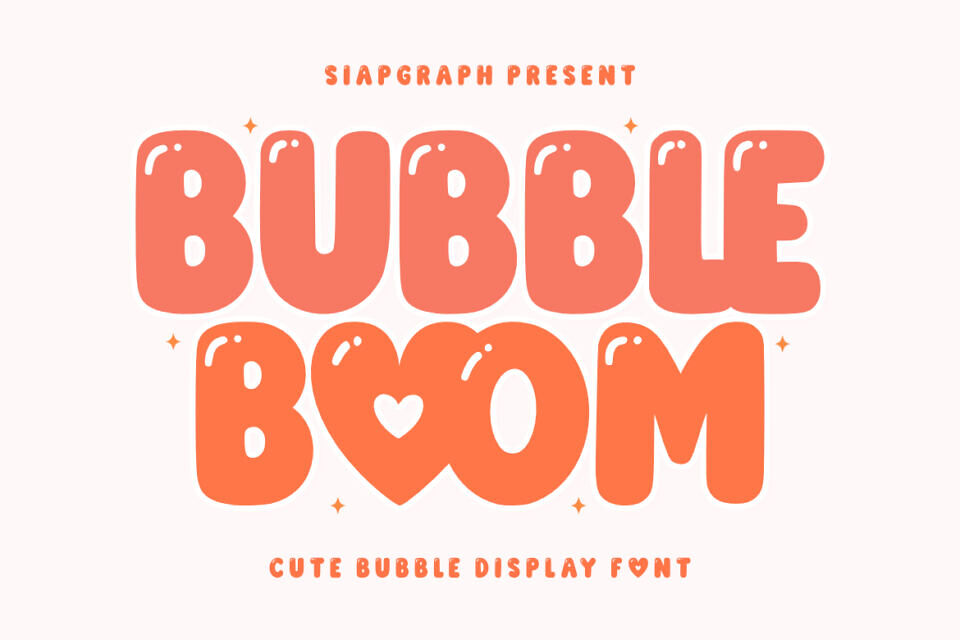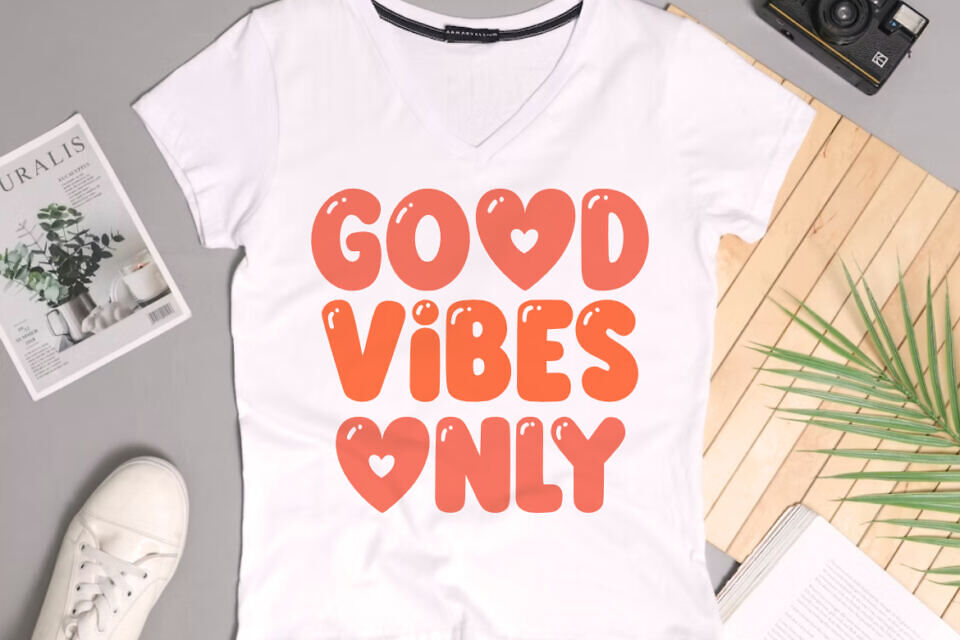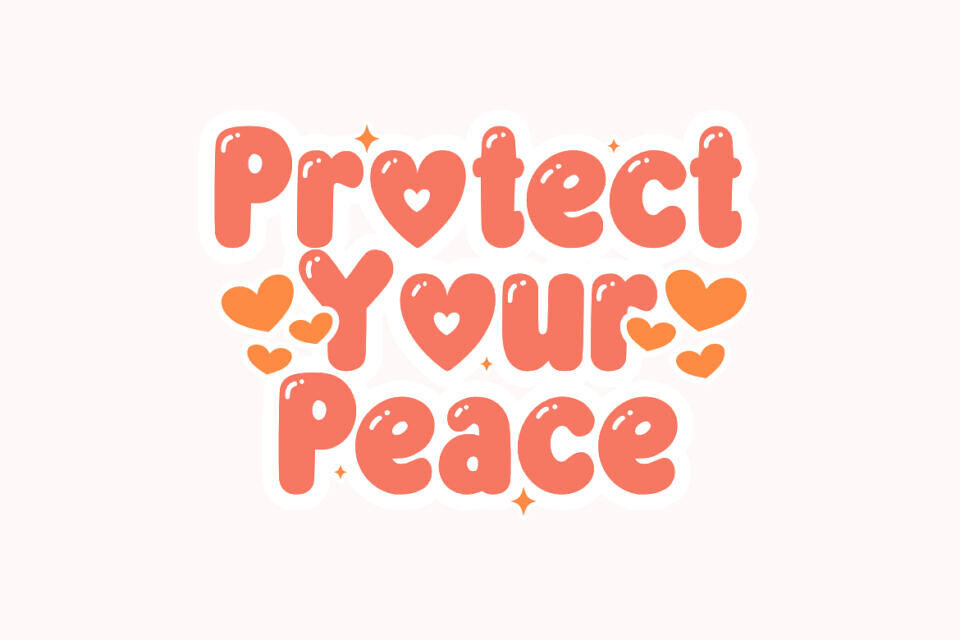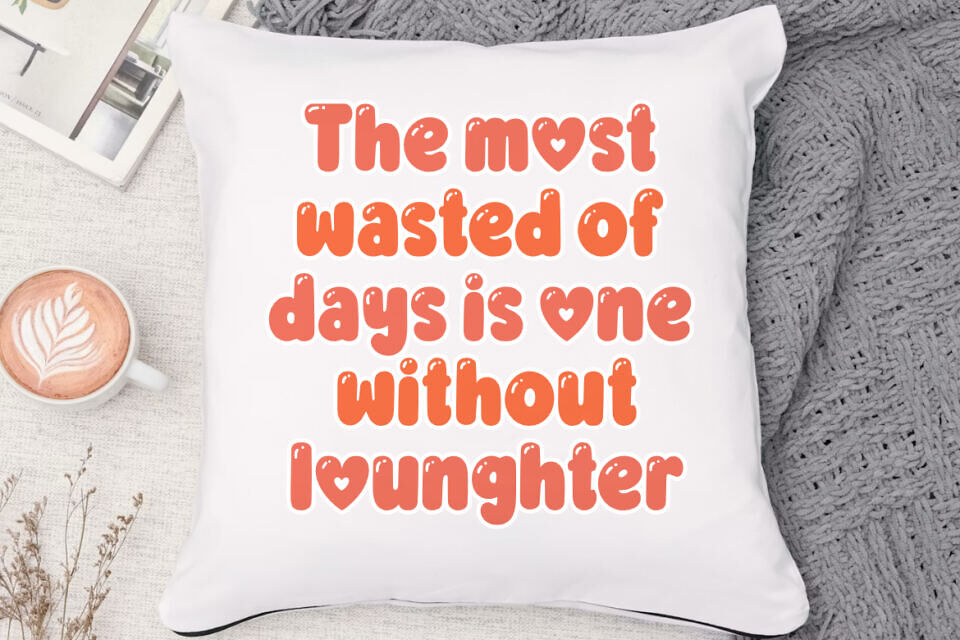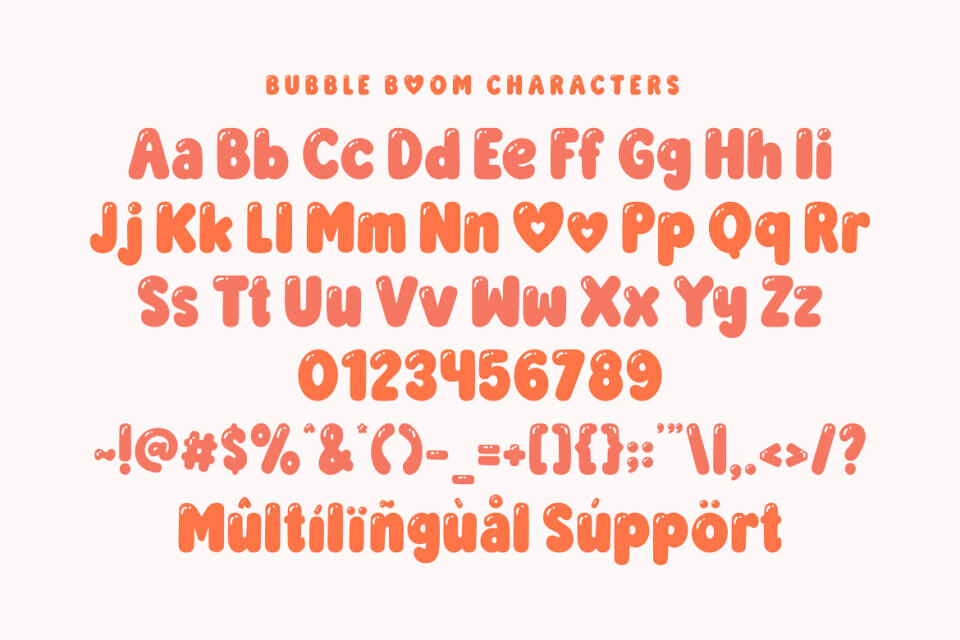
Bubble Boom is a cute bubble display font that radiates energy, playfulness, and pure joy. Featuring chunky, rounded letterforms accented with sweet glossy highlights and charming heart details, this typeface is specifically designed to bring a fun and optimistic vibe to any creative project.
This font is ideal for various projects, including custom stickers, nursery art, and social media graphics. It’s also great for holiday themes like birthdays and Valentine’s Day, adding a sweet and playful touch to your designs. Its whimsical style makes it suitable for creating festive and eye-catching content for various occasions.